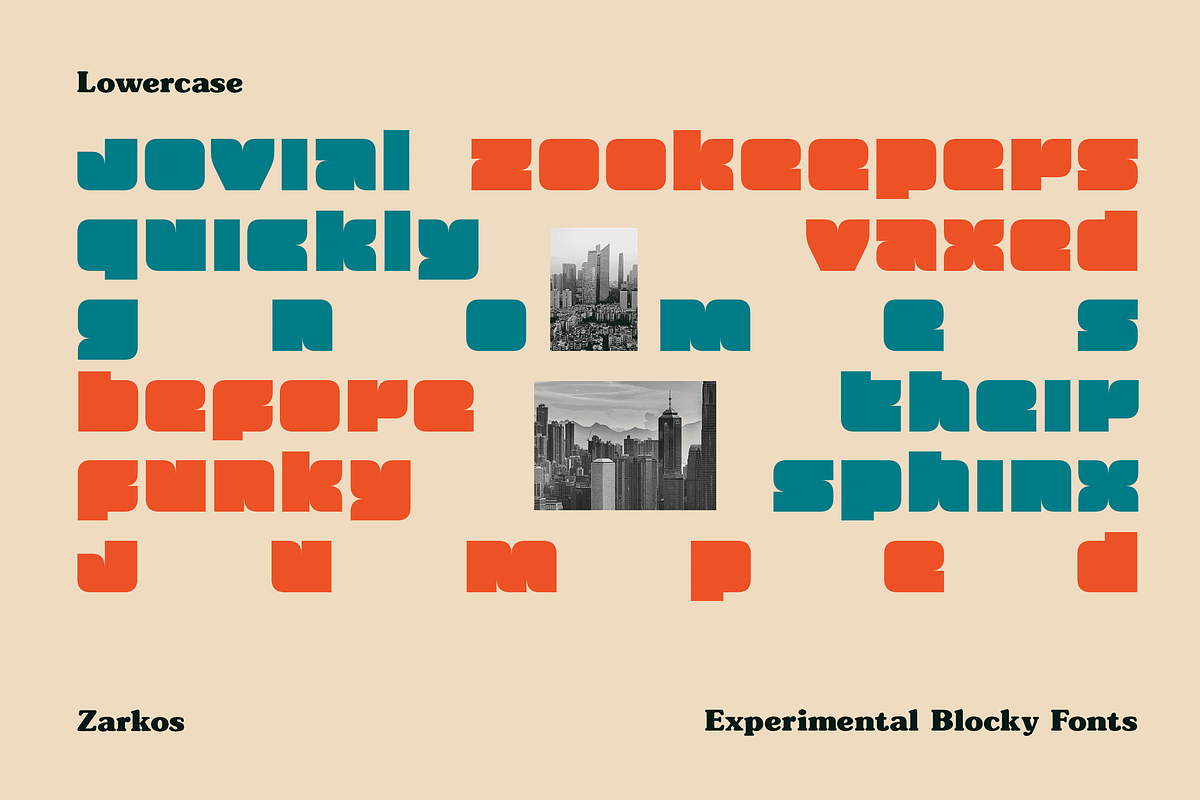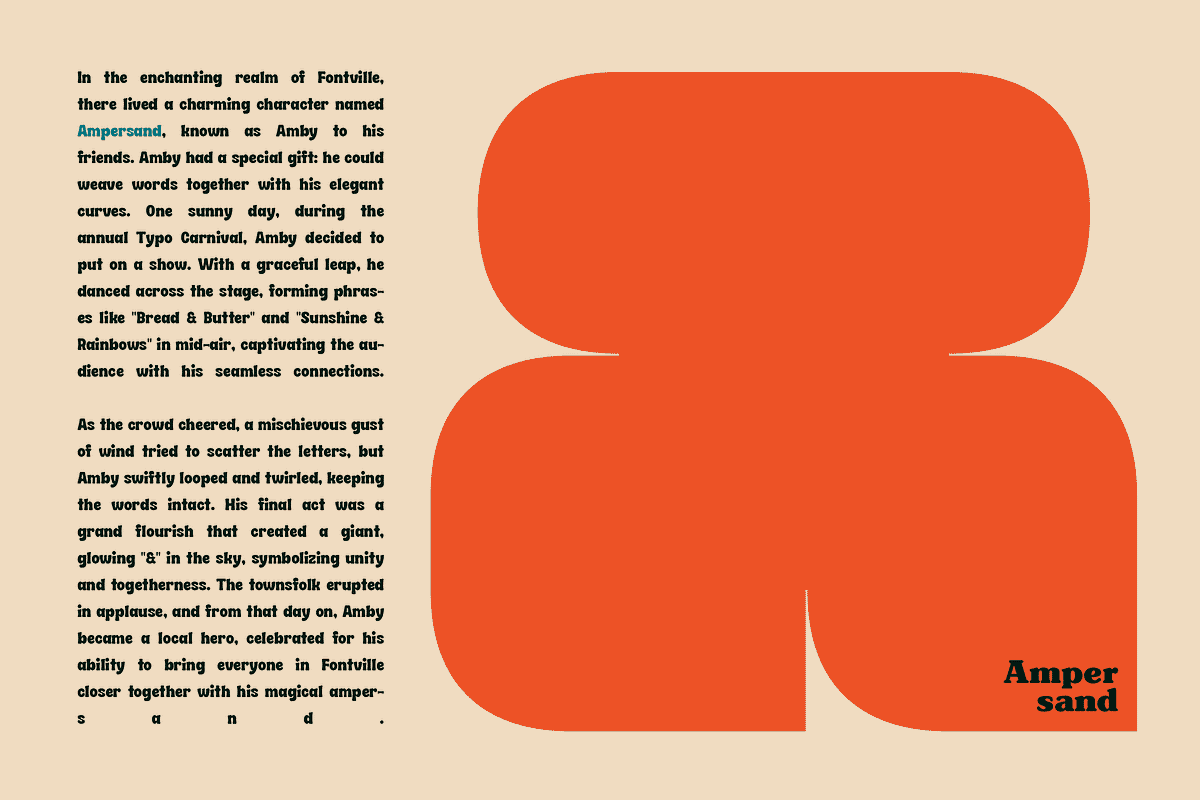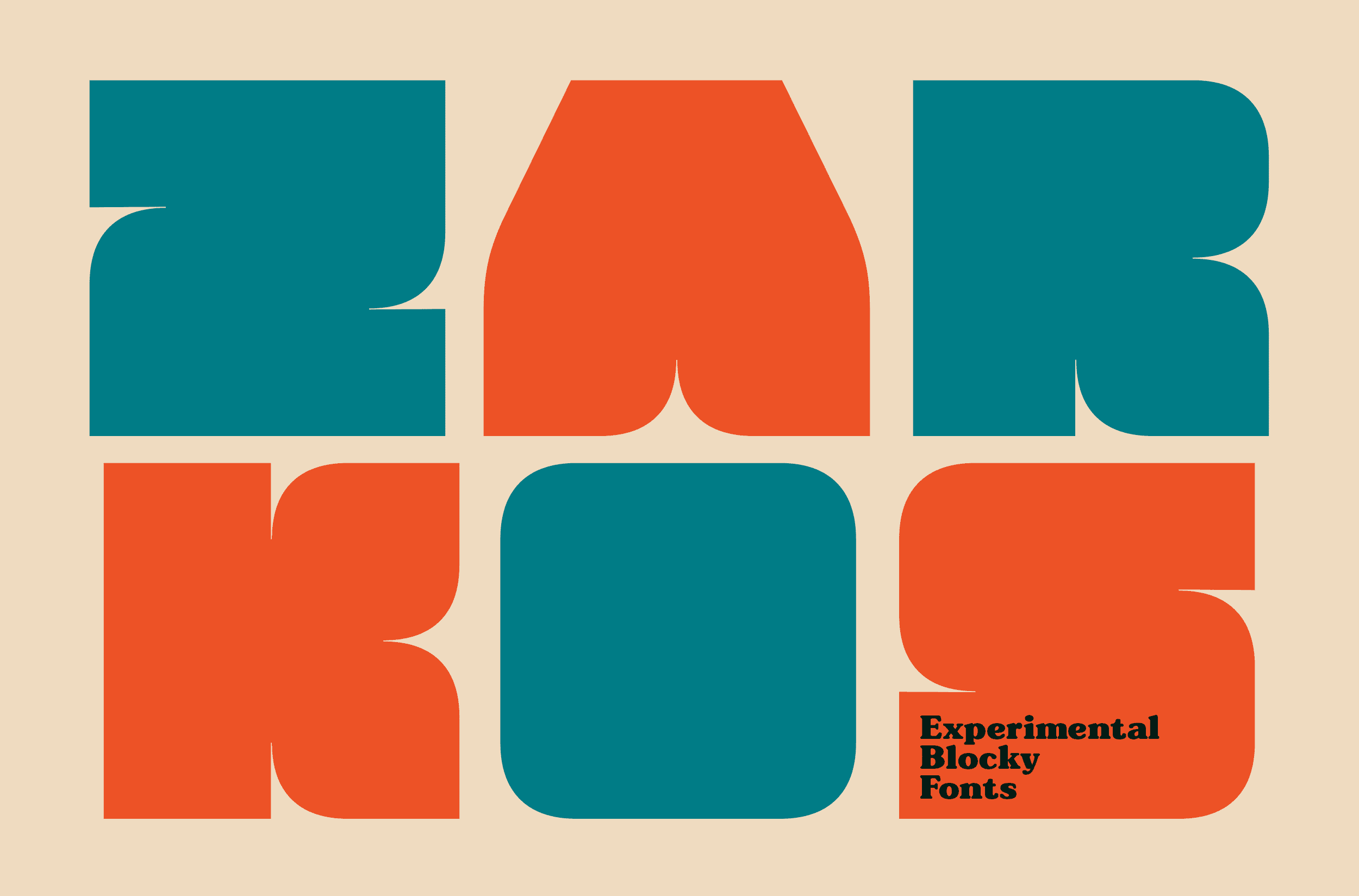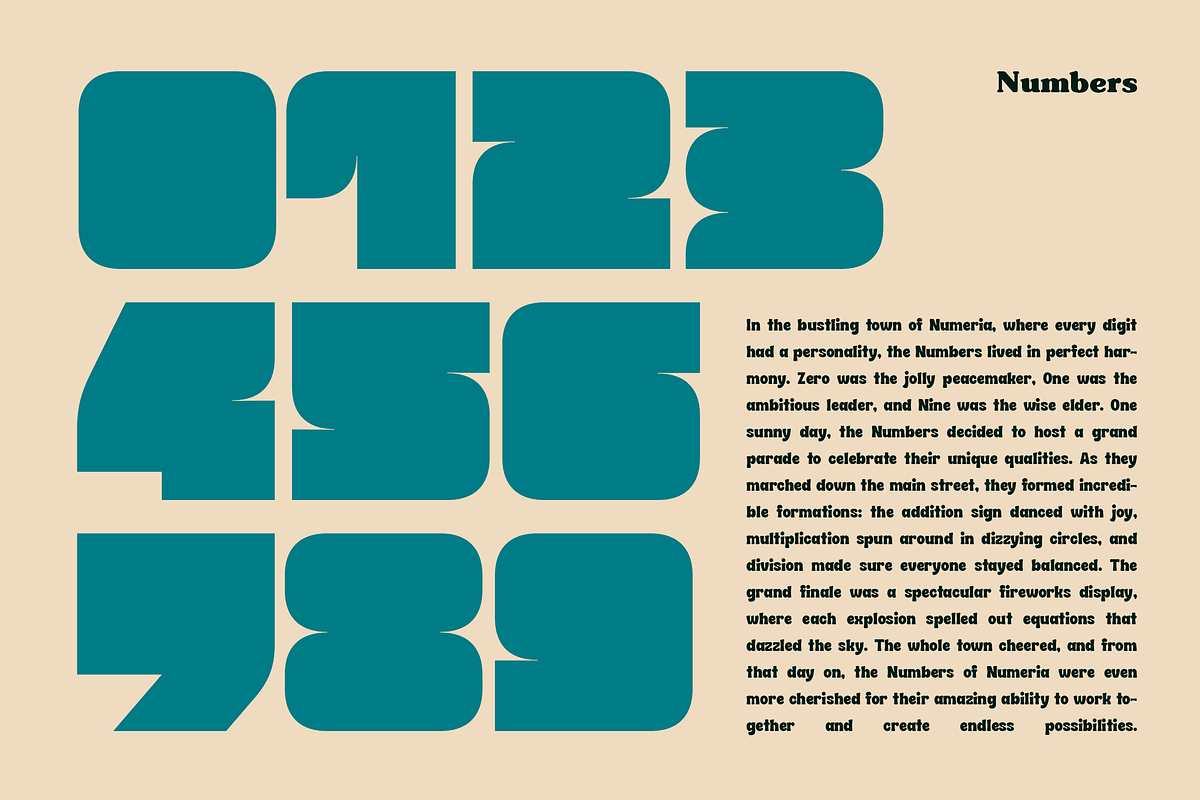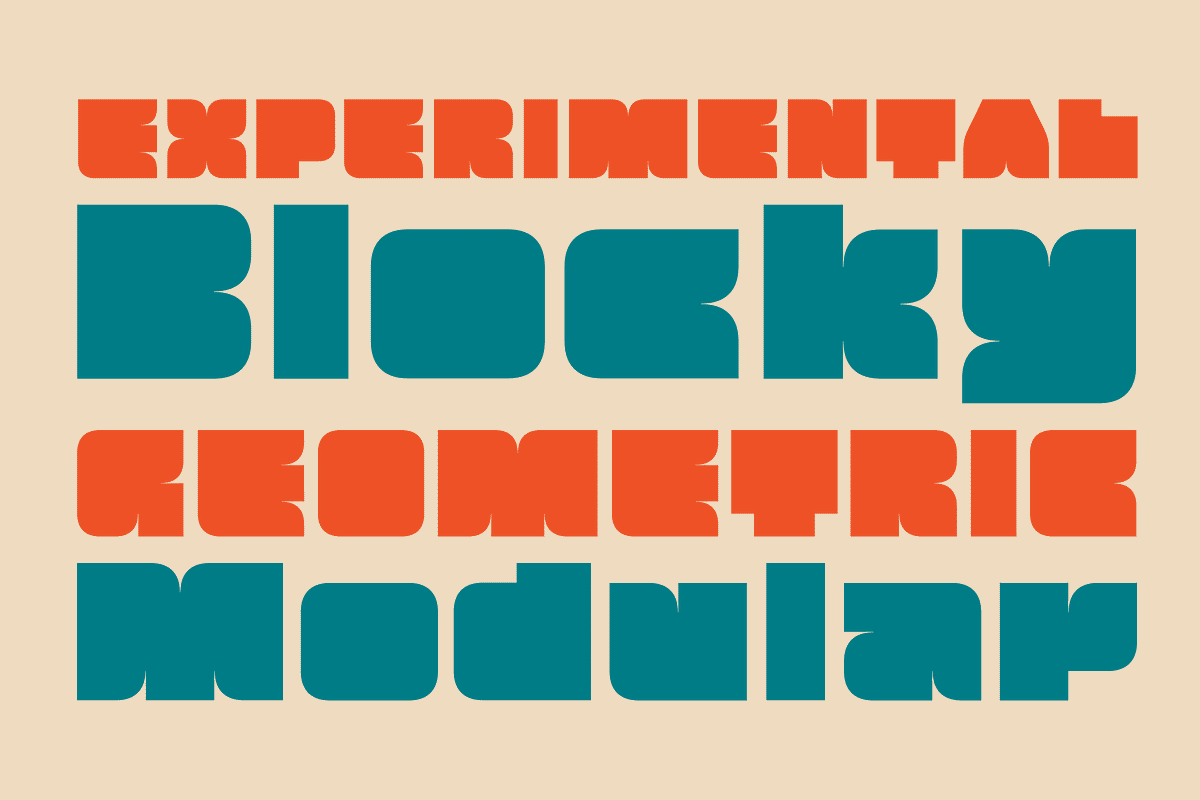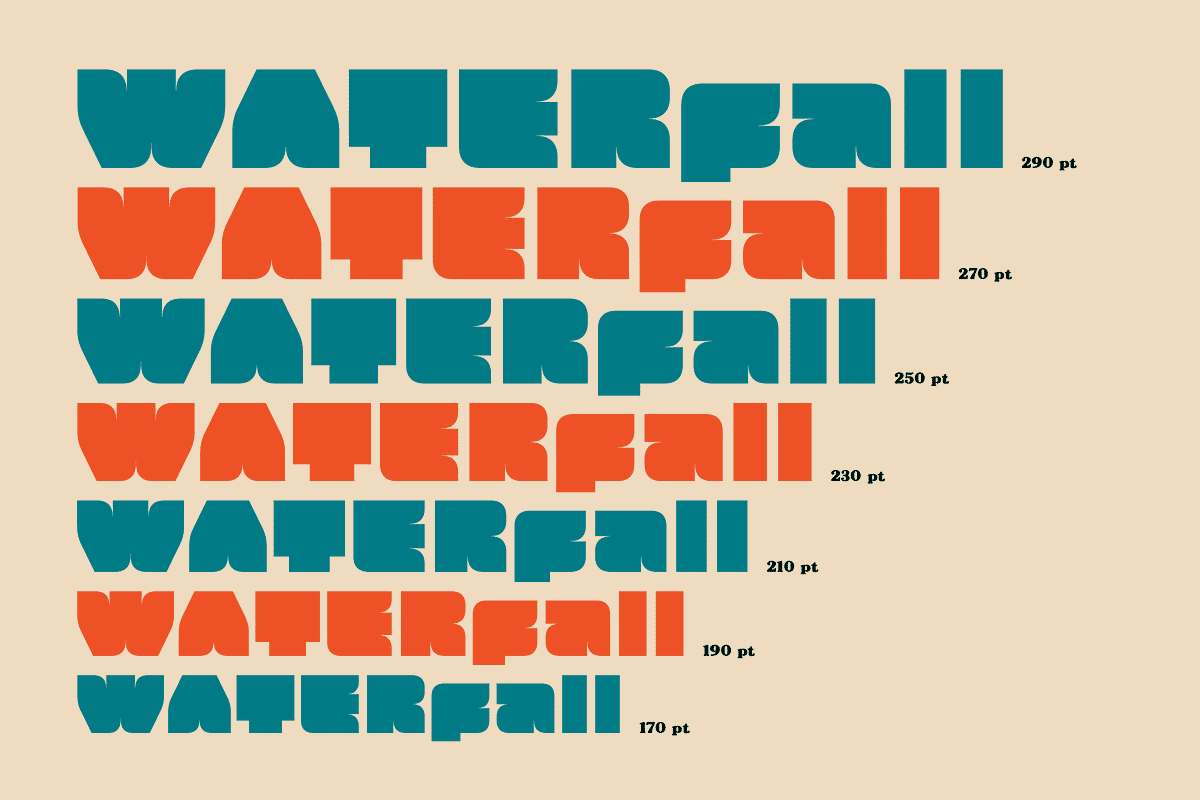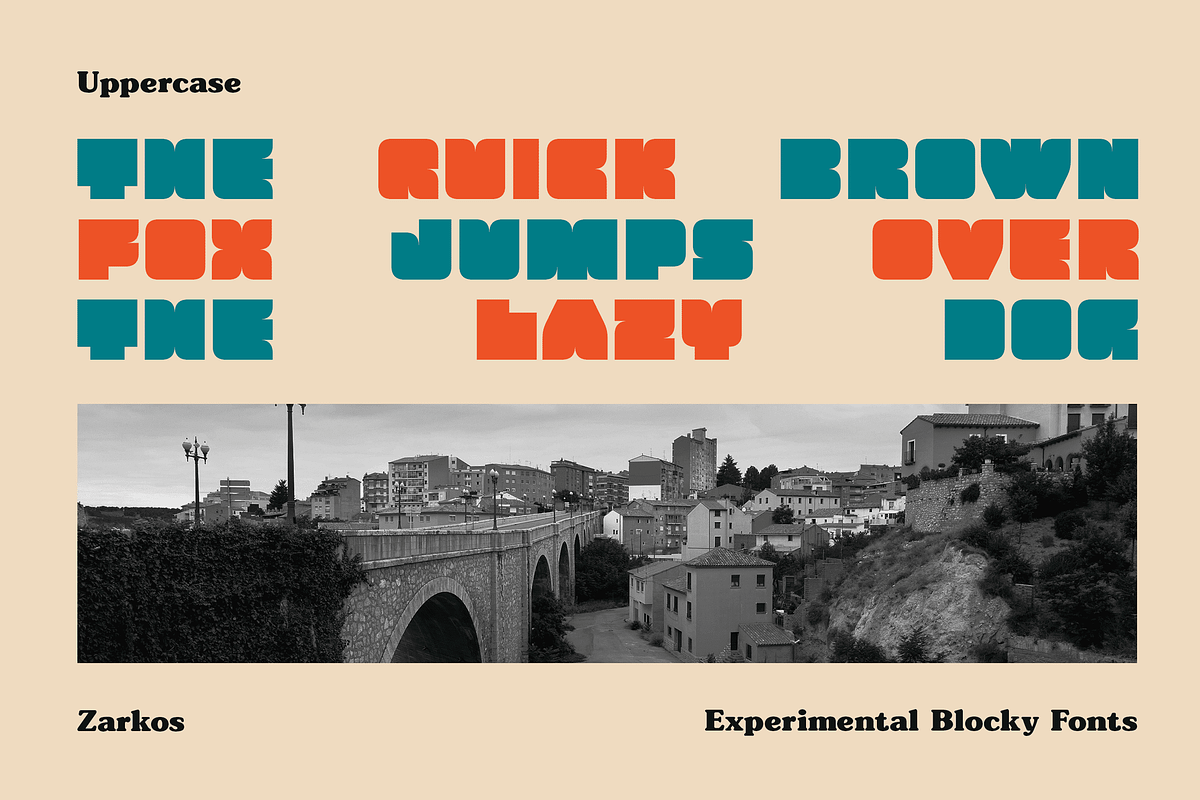
Zarkos - Experimental Blocky Fonts
Bold. Blocky. Brave. Zarkos is not just a font; it's a statement. A fusion of form and function, designed for those who dare to be different.
It’s a declaration, a challenge to the ordinary. This font is a bold experiment in typography, pushing the boundaries of design with its raw, geometric aesthetic. Whether you're crafting a minimalist masterpiece or a bold, disruptive statement, Zarkos is the cornerstone of your design revolution.
Ignite your imagination with Zarkos. Perfect for crafting iconic logos, bold branding, mind-blowing visuals, and groundbreaking art installations. Sky is the limit, so explore as far as you can.